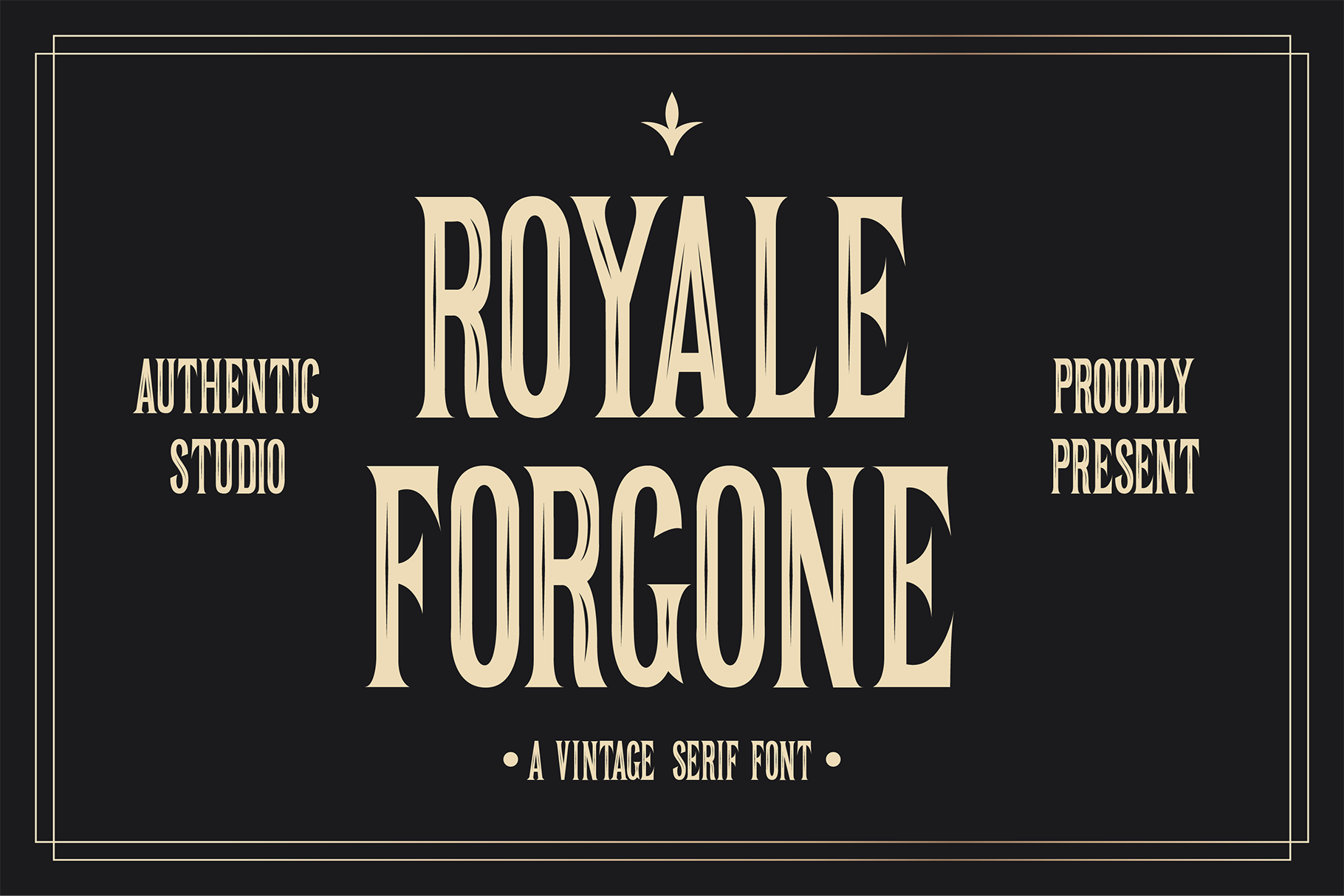
Royale Forgone Font
Royale Forgone is a bold vintage styled and incredibly unique serif font. It is suitable for any branding, product packaging, invitation, quote, t-shirt, label, poster, logo that you wish to develop.